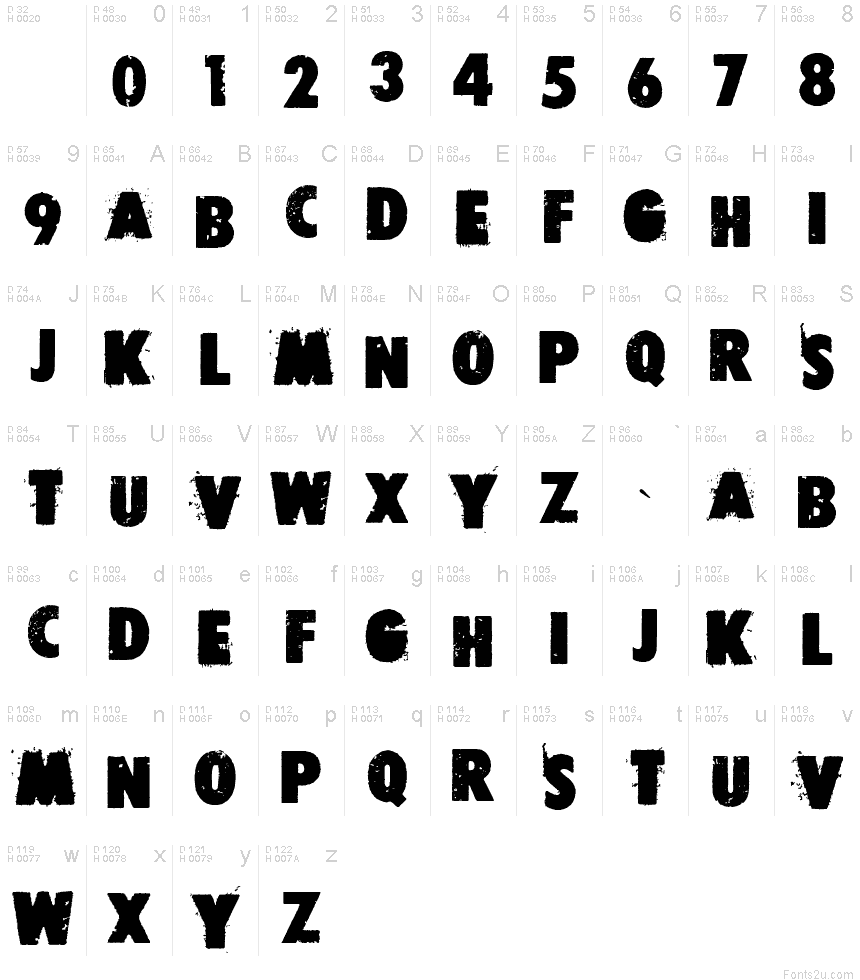
Free Press is a free eroded display font with massive caps and a blunt industrial silhouette. Ragged edges, chipped interiors, and uneven cuts give the lettering the look of ink dragged across a battered printing plate.
Its scraped surfaces echo photocopied photographs and torn poster textures, making it useful for punk album covers, protest graphics, and streetwear branding. On event posters and independent magazine covers, the letters can become part of the distressed artwork rather than serving as neutral typography.